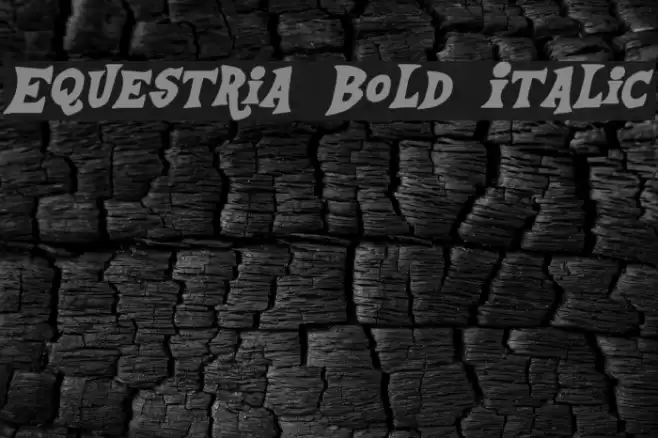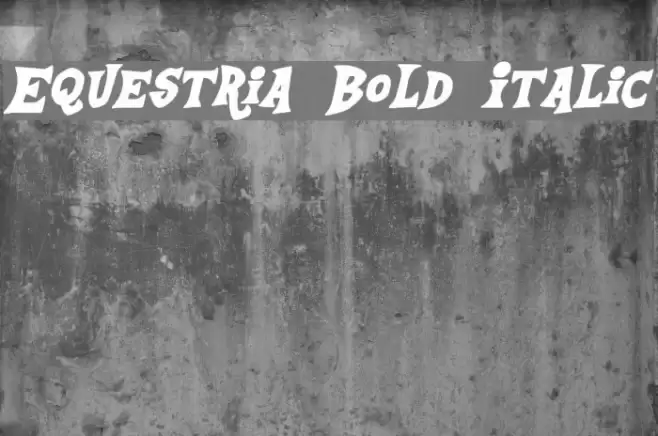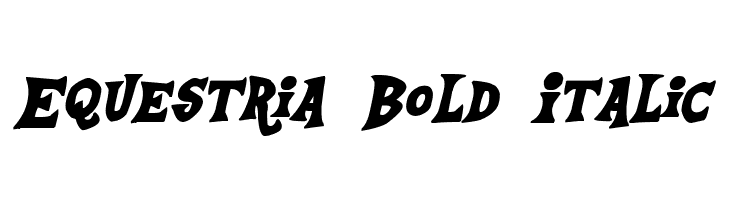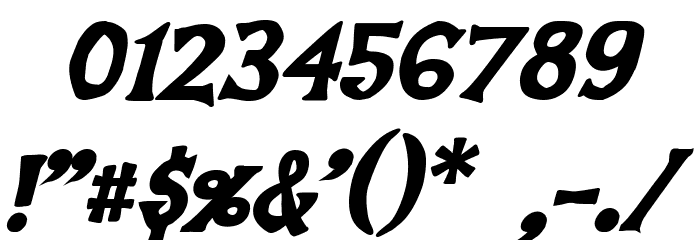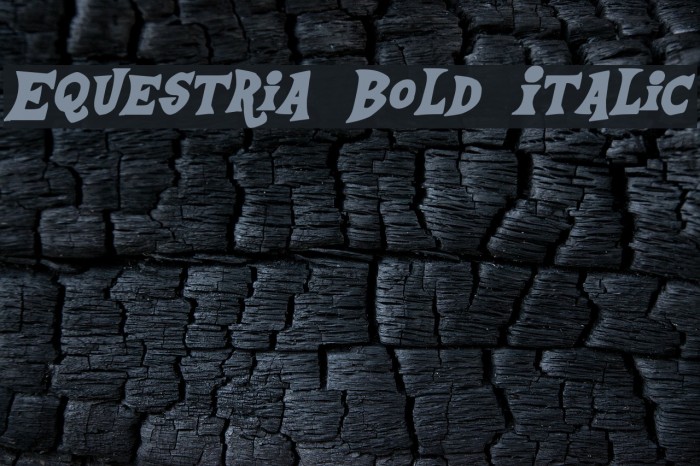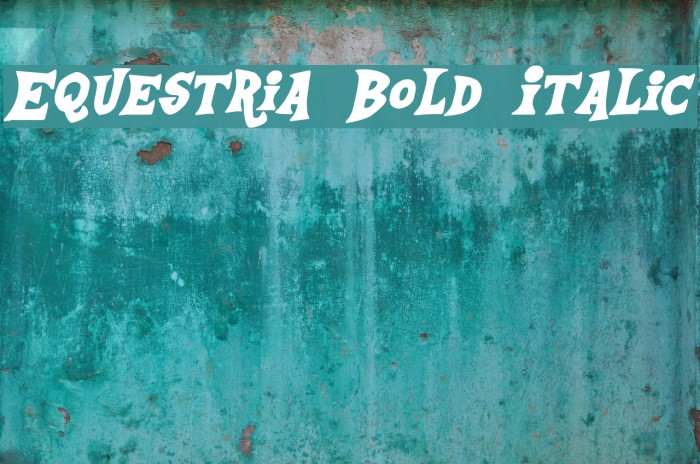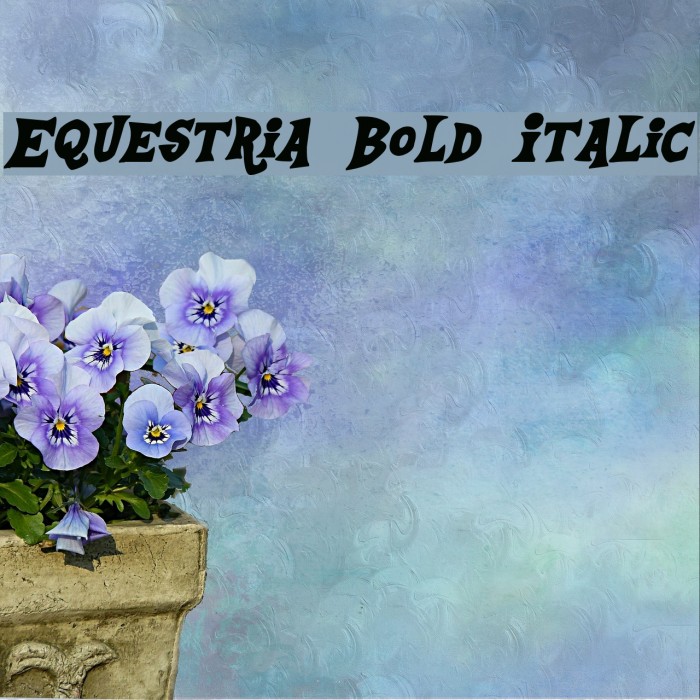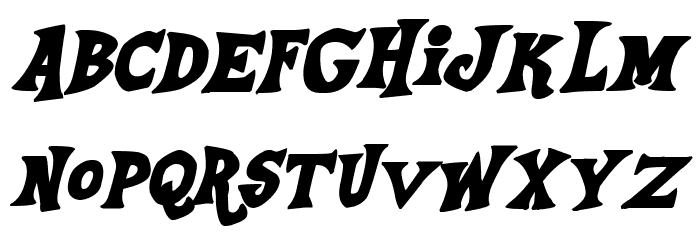
Equestria Bold Italic Font
Equestria Bold Italic Description
This font features a bold and dynamic style with a distinct italic slant, giving it a sense of movement and energy. The characters are thick and robust, with sharp edges and a playful, almost whimsical flair. The uppercase letters are particularly striking, with exaggerated curves and angles that make them stand out. The lowercase letters maintain the same boldness, ensuring consistency throughout the typeface. Numbers and special characters are equally bold, making them suitable for attention-grabbing designs. The overall appearance is both modern and decorative, making it ideal for projects that require a strong visual impact.
A bold, italic font with dynamic, playful curves and sharp edges from Uncategorized fonts.
- Proposed Projects: Ideal for posters, logos, headlines, and any design that requires a bold, energetic typeface.
- Overall Style: Modern, Decorative